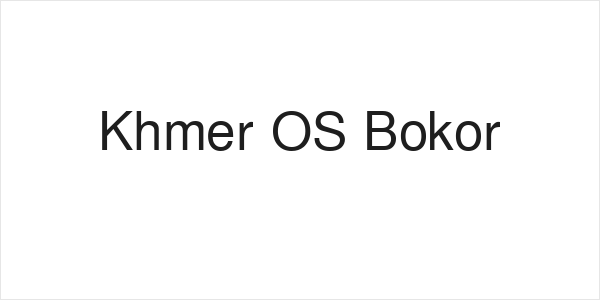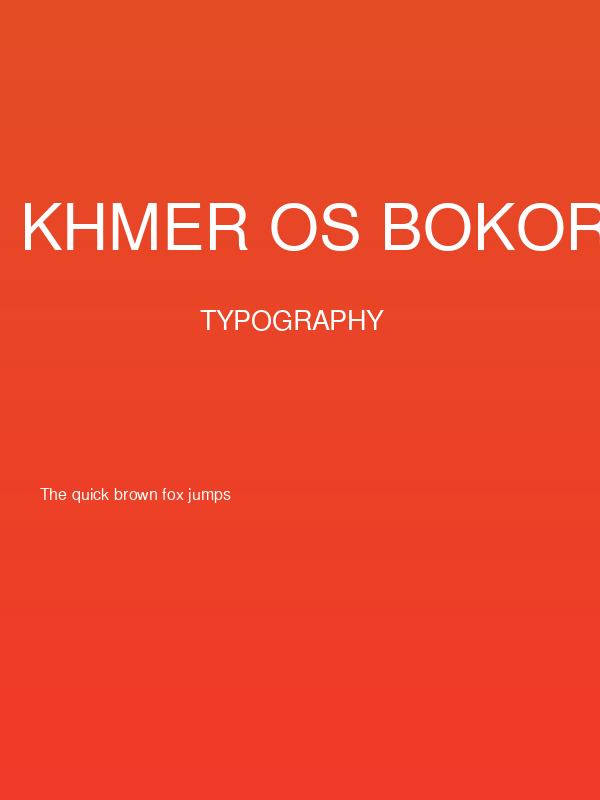
Khmer OS Bokor Font
Khmer OS Bokor Description
This font features a clean and modern sans-serif design, characterized by its simplicity and readability. The letterforms are uniform with consistent stroke widths, providing a balanced and harmonious appearance. The uppercase letters are bold and assertive, while the lowercase letters maintain a friendly and approachable feel. The numerals are clear and easily distinguishable, making them suitable for both display and text settings. Special characters are well-integrated, ensuring versatility across various applications. The overall design is straightforward, making it ideal for a wide range of uses.
| Proposed Projects | Ideal for web design, corporate branding, signage, and editorial layouts. |